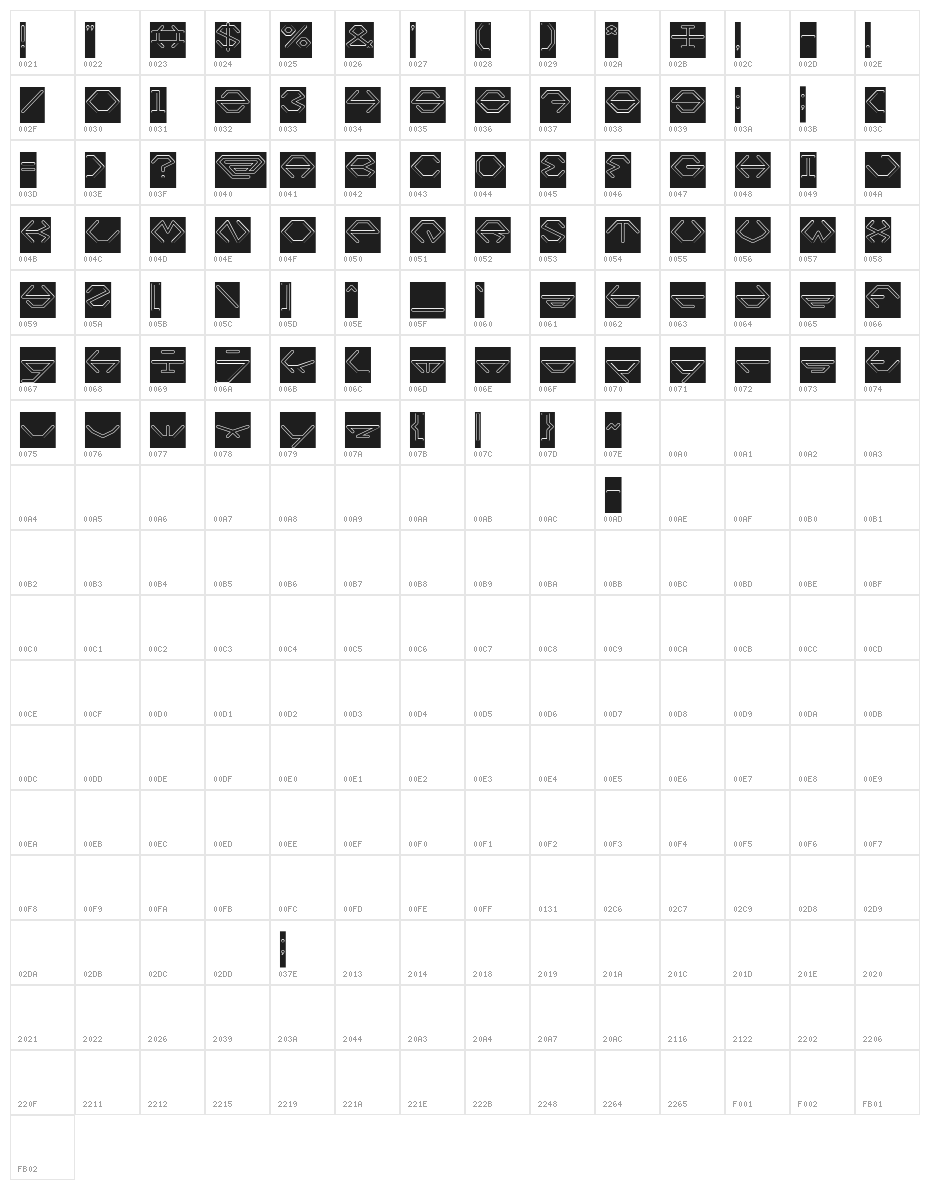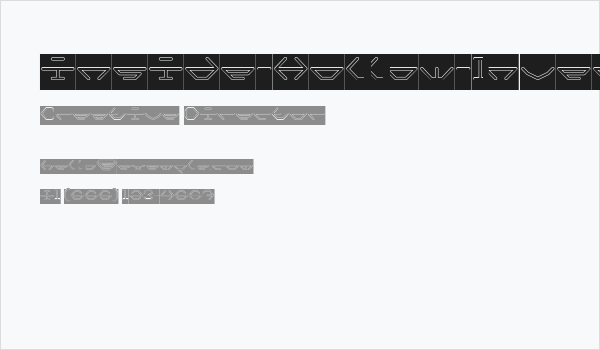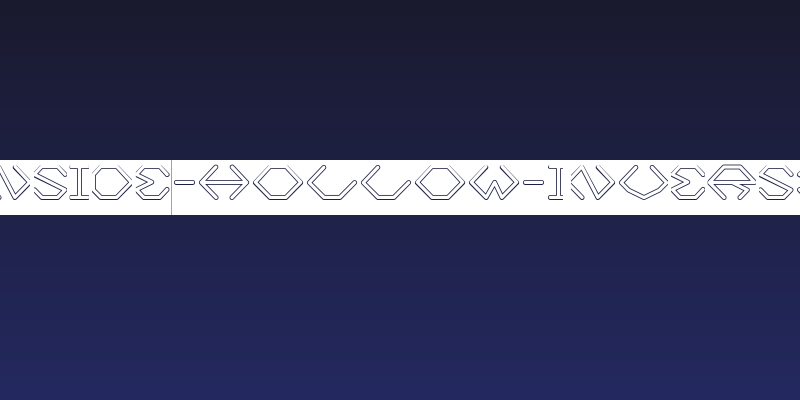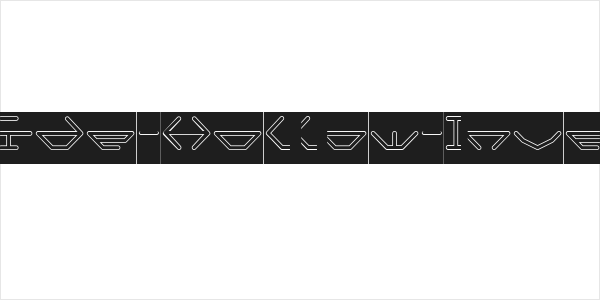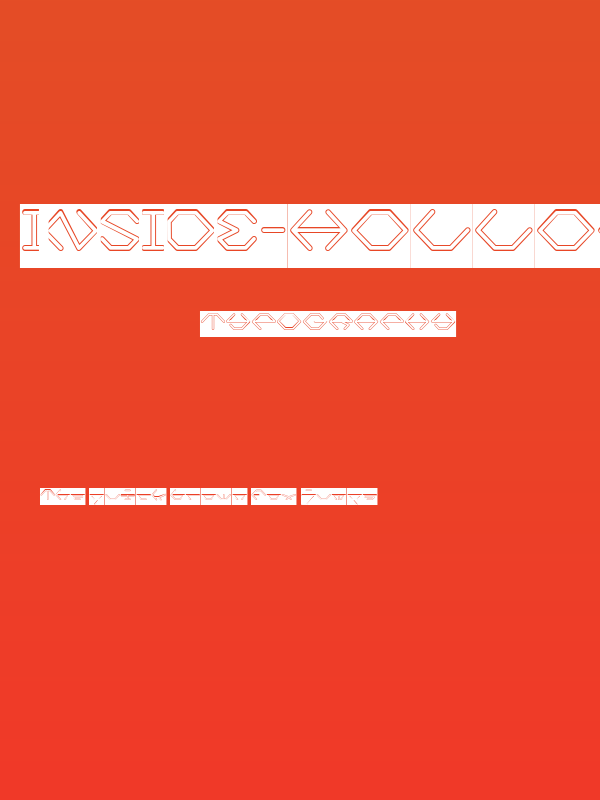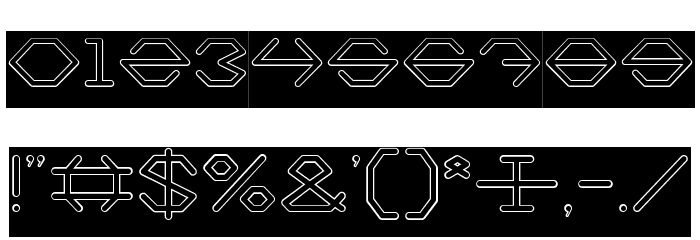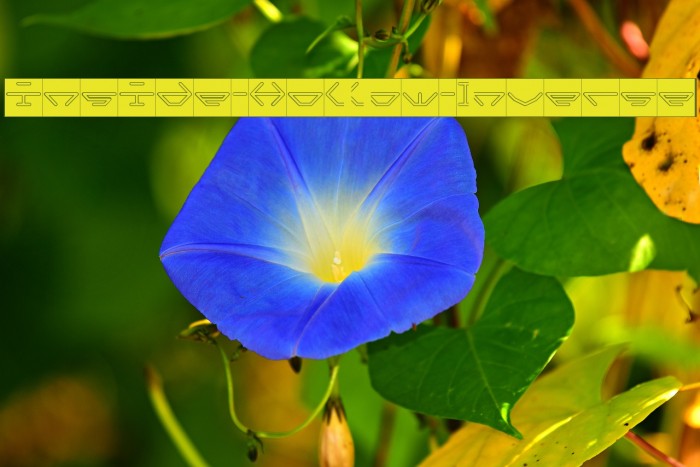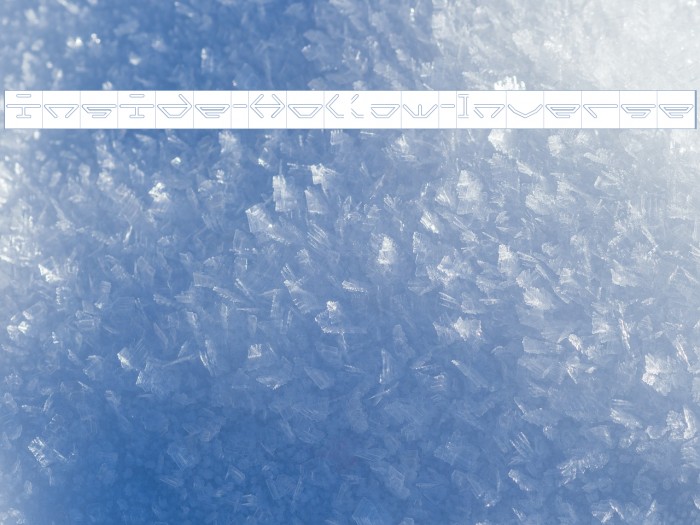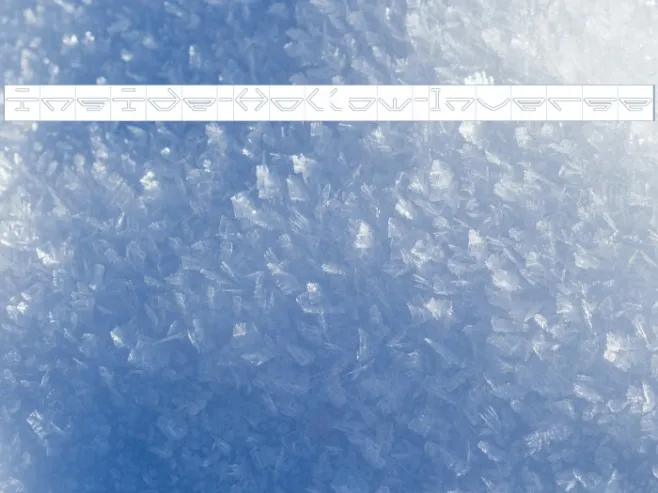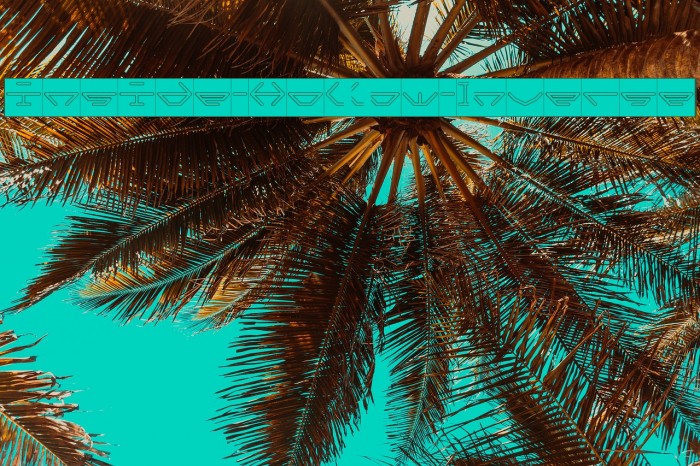
inside-Hollow-Inverse Font
inside-Hollow-Inverse Description
This font features a unique, futuristic design with hollow, geometric letterforms. Each character is constructed with a series of angular lines and sharp edges, creating an inverse outline effect. The uppercase and lowercase letters maintain a consistent style, with a uniform thickness that gives the font a cohesive look. Numbers and special characters follow the same design principles, ensuring a seamless integration across different text elements. The font's distinct appearance makes it ideal for projects that require a modern and edgy aesthetic.
INSIDE-HOLLOW-INVERSE UPPERCASE
INSIDE-HOLLOW-INVERSE LOWERCASE
INSIDE-HOLLOW-INVERSE OTHER CHARS
| Overall Style | Futuristic, Modern |
| Proposed Projects | Ideal for sci-fi themed designs, tech branding, video game interfaces, and modern posters. |